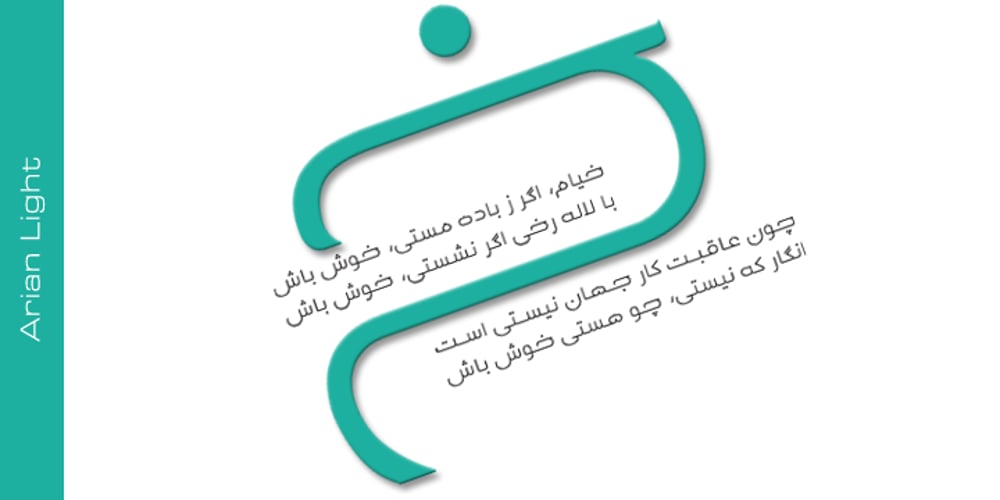
Arian Font Family was designed by Naghi Naghashian and published by Linotype. Arian contains 5 styles and family package options. For decades, the Persian-born Naghi Naghashian has been working as a graphic designer and illustrator in Germany. Arian™ is his first commercial Arabic typeface. Named after his mother, Naghi created the Arian typeface family after years of systematically analyzing the Arabic script. The Arian design is sought to fulfill the many needs and was developed for multiple languages and writing conventions. It’s extremely legibilitable not only in small sizes, but also when the type is filtered or skewed. This typeface offers a fine balance between calligraphic tradition and the contemporary sans serif aesthetic now common in Latin typography.